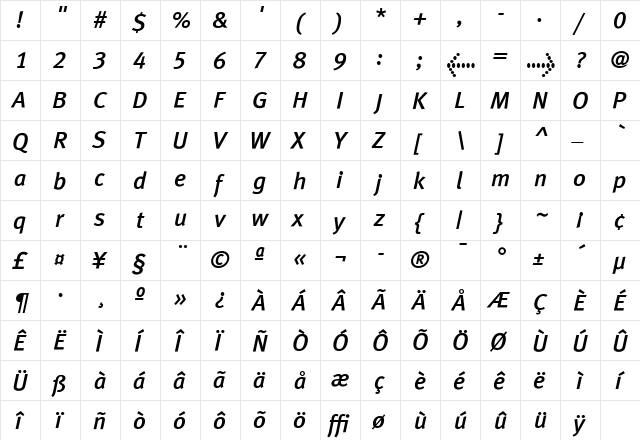
MetaPlusLining Medium Italic Font Preview
MetaPlusLining Medium Italic
MetaPlusLining Medium Italic Font Details
| Style | Medium Italic |
| Foundry | \ Erik Spiekermann |
Design Context for MetaPlusLining Typeface
MetaPlusLining is a composed and adaptable typeface that performs quietly and consistently across a wide range of design contexts. The dynamic lean of this cut emphasises speed and emphasis in any layout.